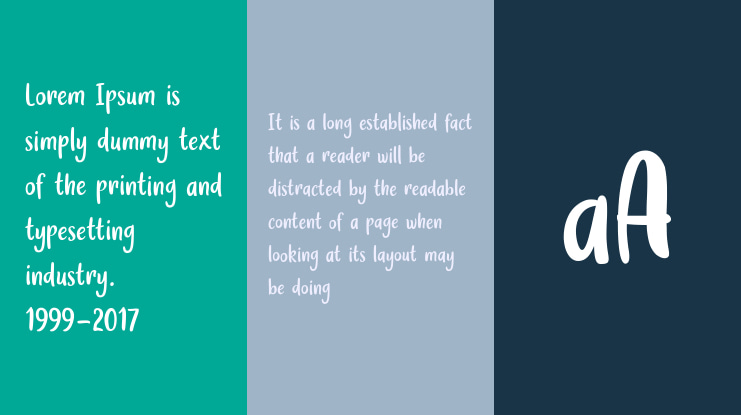
Holiday Garden Font
deedeetype
Holiday Garden is a playful and casual handwritten font. This font will be an additional asset to your fonts library, as it has the potential to elevate any creation.
The small caps has 2 different versions of each letter and set to cycle as you type.